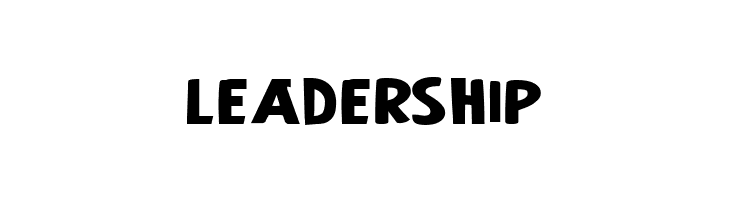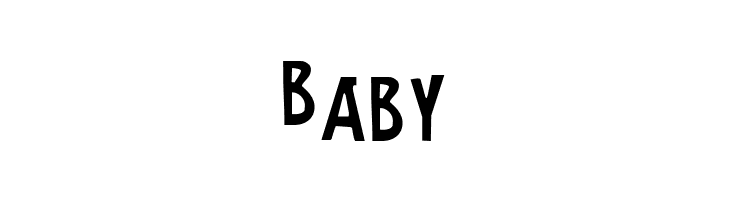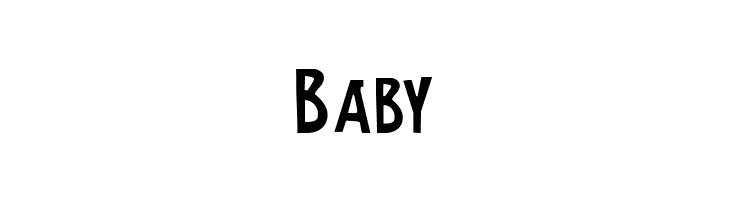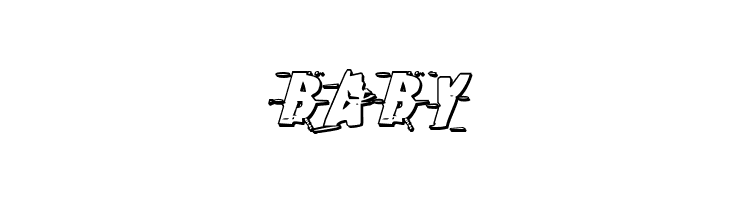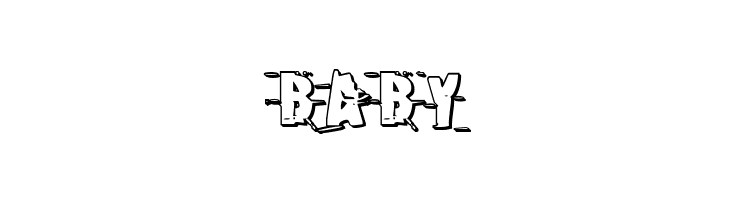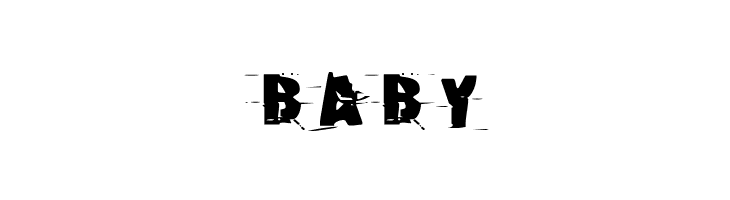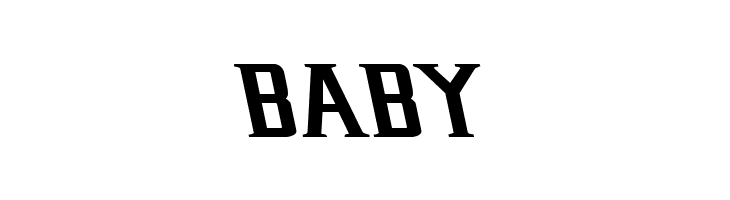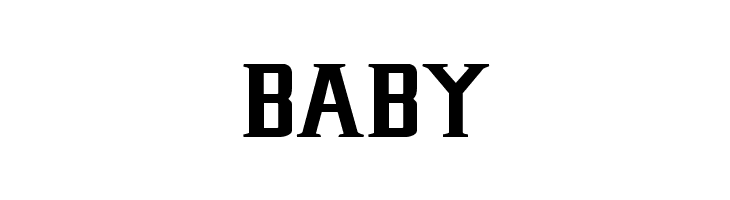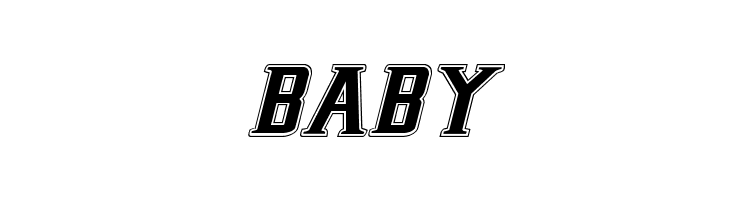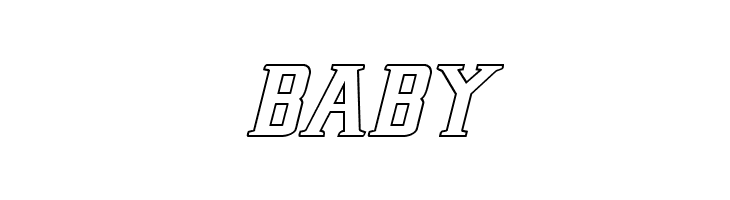
Bold, angular font with a dynamic, geometric style.
A bold, geometric outline font with a futuristic and angular design.
A bold, angular outline font with an italic slant, ideal for dynamic and modern designs.
A bold, angular, semi-italic font with a dynamic and modern style.
A bold, angular, and italicized font with a futuristic and dynamic style.
A decorative font with intricate illustrations inspired by early American art.
A decorative font with medieval-themed illustrations within each character.
Surrealist dingbat font with imaginative, hand-drawn illustrations.
A bold, modern font with a slightly condensed and decorative style.
A bold, 3D outlined font with a playful and dynamic style.
A bold, impactful font with thick lines and a strong presence, ideal for headlines.
A bold, expanded font with a modern and impactful style.
A bold, dynamic font with a comic book style.
A bold, italic font with dynamic slant and strong visual impact.
A bold, playful font with a slightly condensed and dynamic style.
A dynamic, fluid script font with elegant, flowing lines and a modern appeal.
A rugged, hand-drawn typewriter-style font with a modern twist.
A bold, three-dimensional font with outlined characters and a strong, impactful presence.
A bold, 3D italic font with dynamic, shadowed characters.
A bold, outlined font with a collegiate, vintage style.
Bold, italicized font with outlined, angular characters ideal for dynamic designs.
A bold, slab serif font with strong, thick strokes and a modern yet classic appeal.
A bold, italicized font with sharp angles and a dynamic presence.
A bold, italic font with sharp angles and high contrast, perfect for impactful designs.
A bold, left-leaning italic font with angular, modern design.
A bold, outlined font with geometric shapes and clean lines, perfect for impactful designs.
A bold, outlined italic font with sharp angles and a modern style.
A bold, angular serif font with a commanding presence and geometric style.
A bold, italic 3D font with a distressed, dynamic style.
A bold, distressed 3D font with a rugged, stone-like appearance.
A bold, distressed font with a rugged, grunge-like aesthetic.
A bold, italic, distressed font with a grunge aesthetic and dynamic style.
A bold, distressed, and condensed font with a rugged, edgy aesthetic.
A bold, distressed, condensed italic font with a rugged texture.
A bold, distressed font with a grunge aesthetic and expanded width.